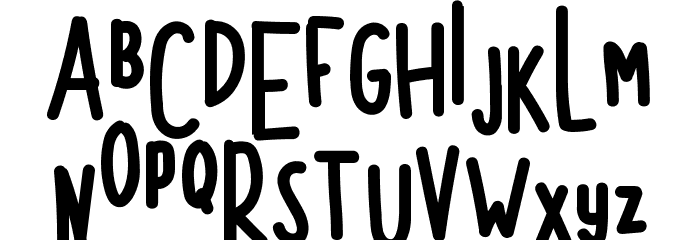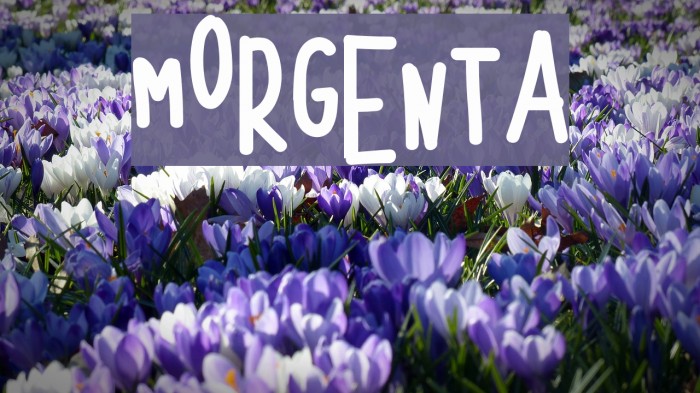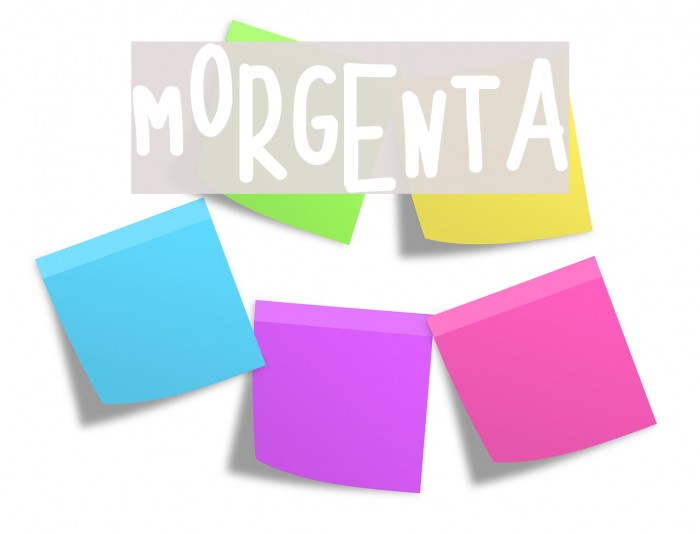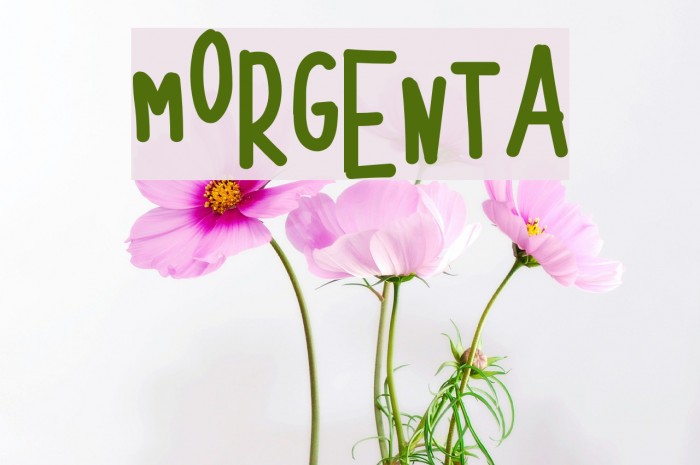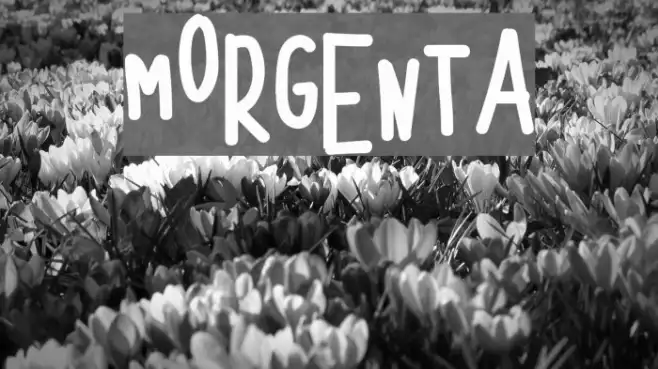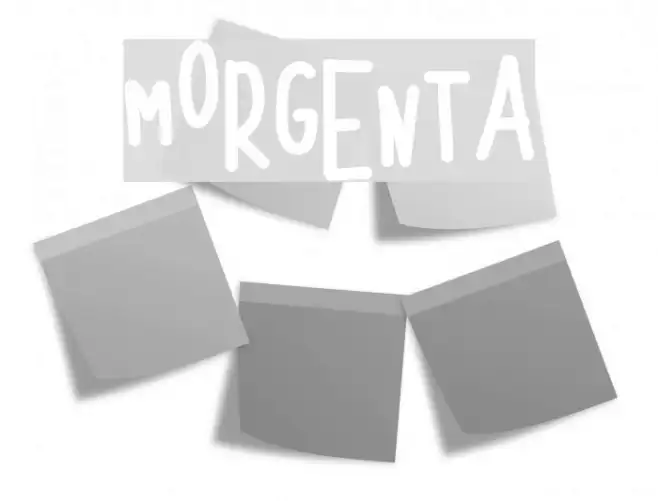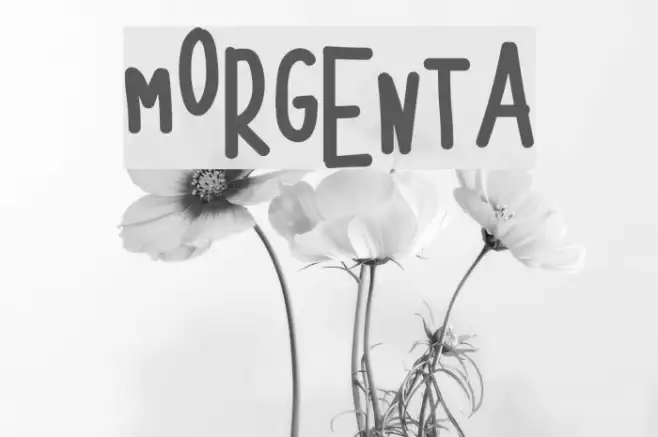
MORGENTA Font
This font features a playful and bold handwritten style, characterized by its irregular and organic letterforms. The uppercase letters are tall and slightly narrow, with a whimsical touch that adds a sense of fun and creativity. The lowercase letters maintain a consistent style, complementing the uppercase with their rounded and approachable appearance. The numerals are clear and easy to read, with a slight tilt that matches the overall playful aesthetic. Special characters are included, maintaining the same lively and informal style. This font is ideal for projects that require a personal and friendly touch, such as children's books, greeting cards, or playful branding.
A playful, bold handwritten font with irregular, organic letterforms.
- Proposed Projects: Children's books, greeting cards, playful branding, casual invitations.
- Overall Style: Playful
- Use Case: Headlines, Logos, Casual text